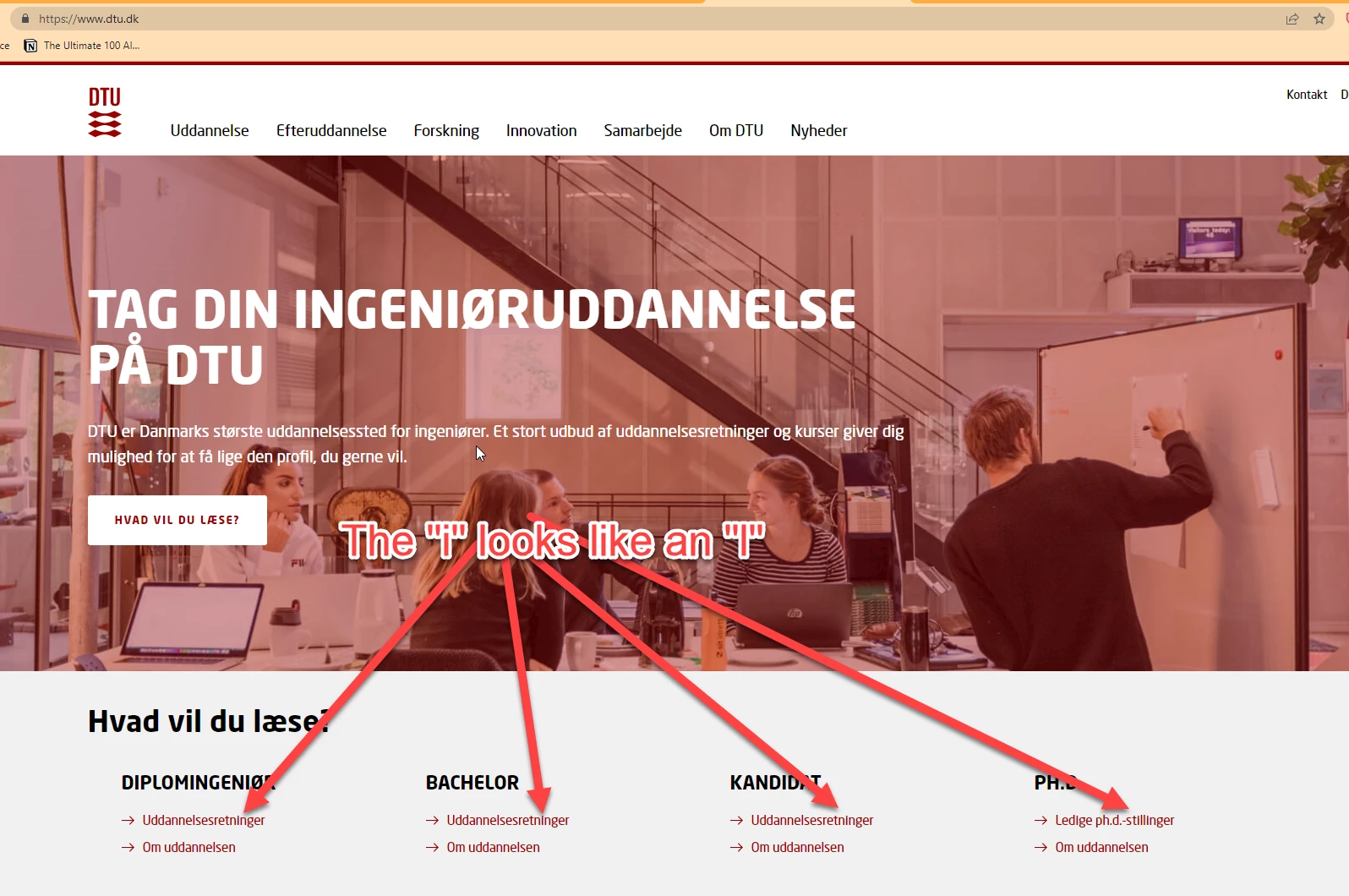
"i" looks like "l" in adobe font version of webfont "Neo Sans"
We have recently changed our webfonts from a self hosted version to the Adobe embedded version. The font is the same as before (Neo Sans), but the version from Adobe makes it hard to tell the difference between some letters. I think this is a bug in the font...
(example from dtu.dk)
It is possible that Monotype made a version specific to Adobe Fonts, But since Adobe font only provide the distribution, you may have better luck asking Monotype if this is something that can be corrected.